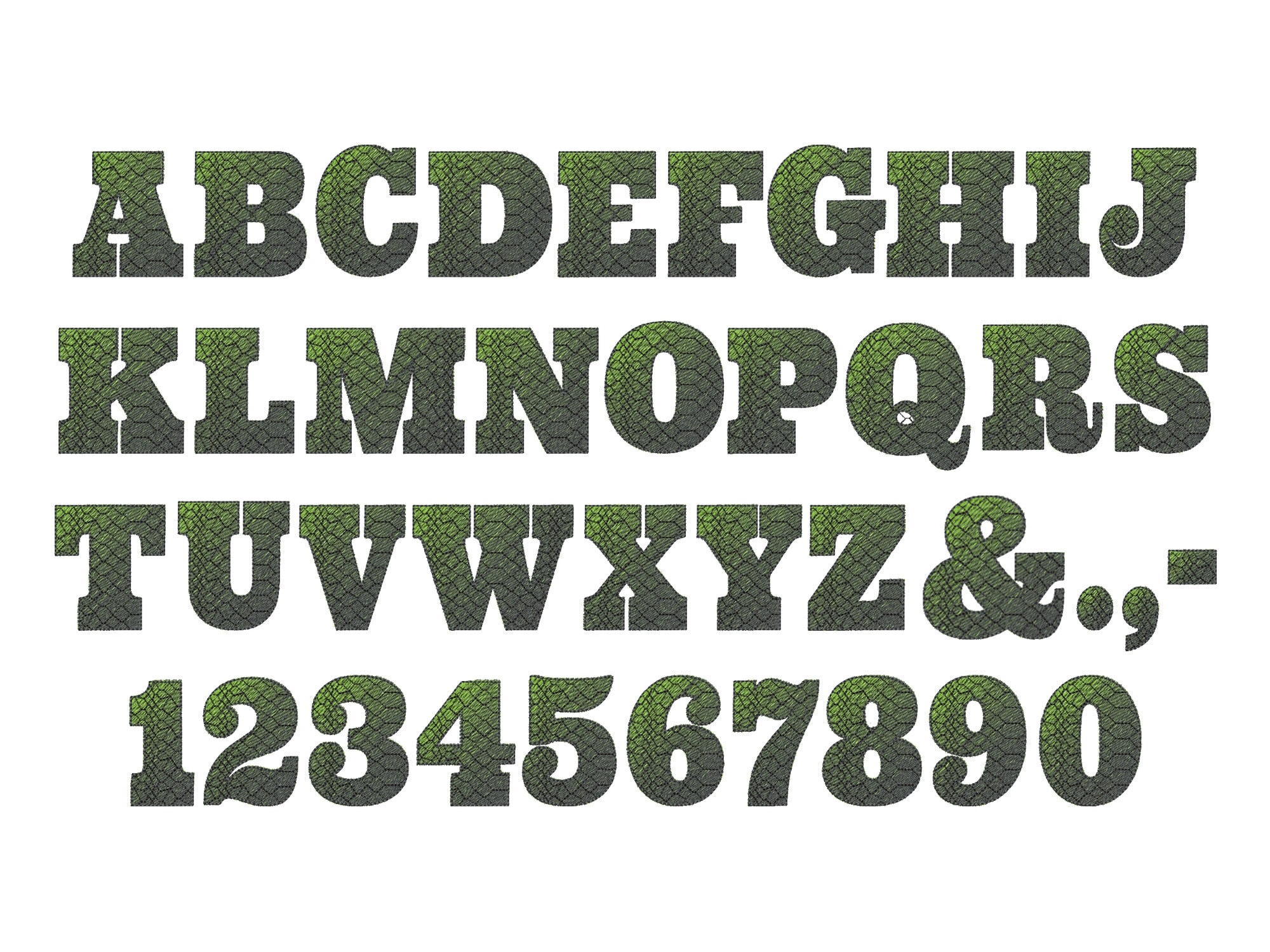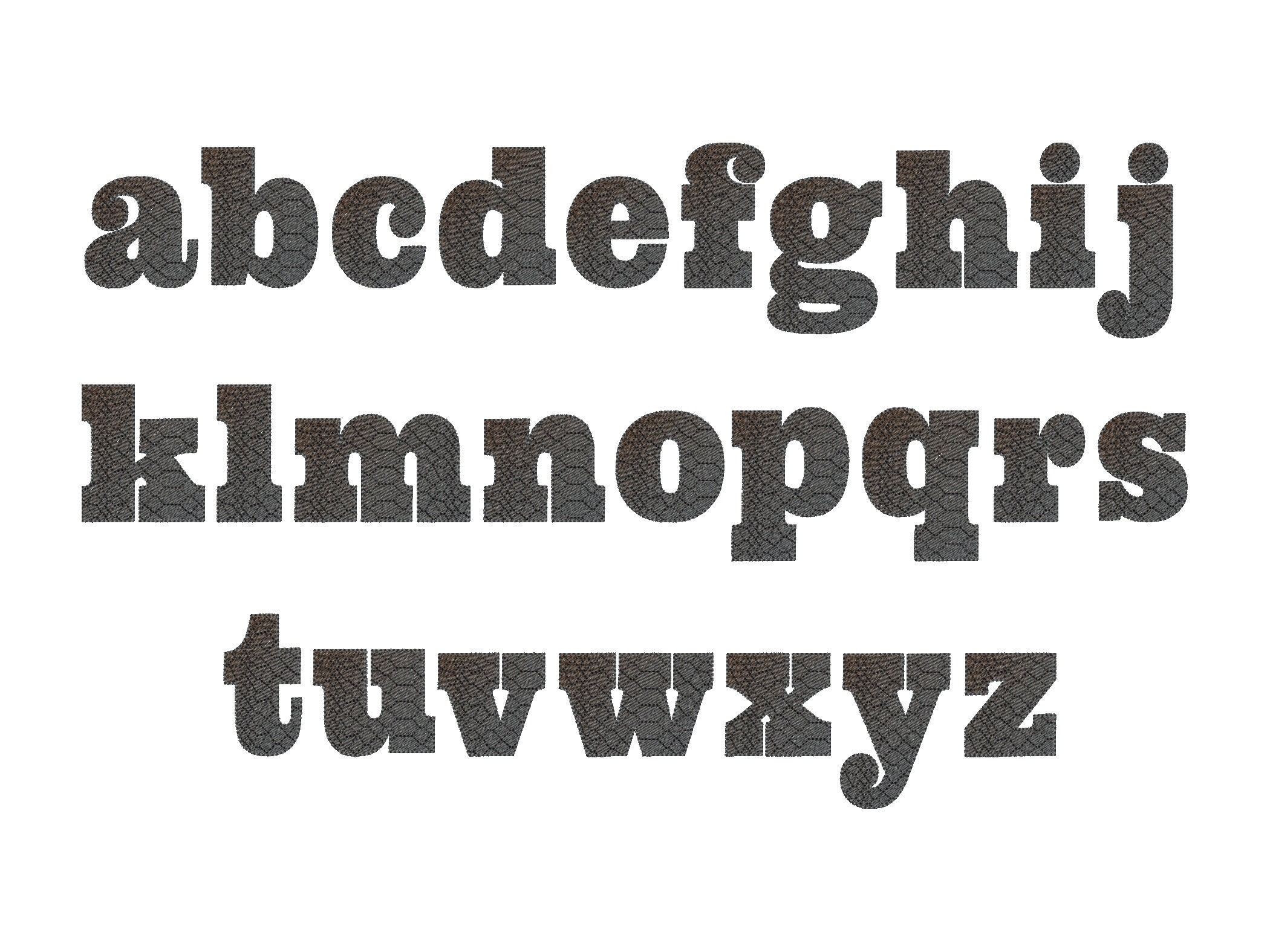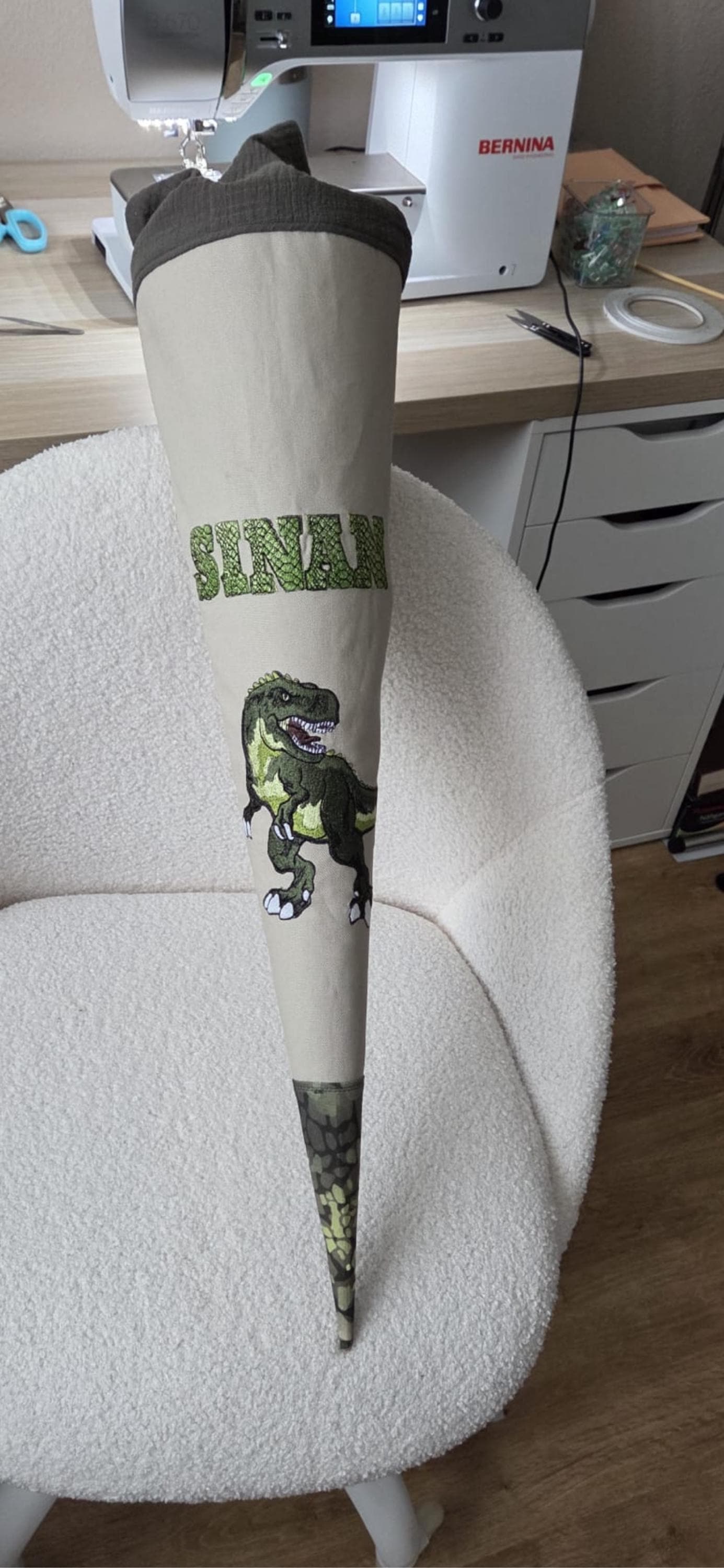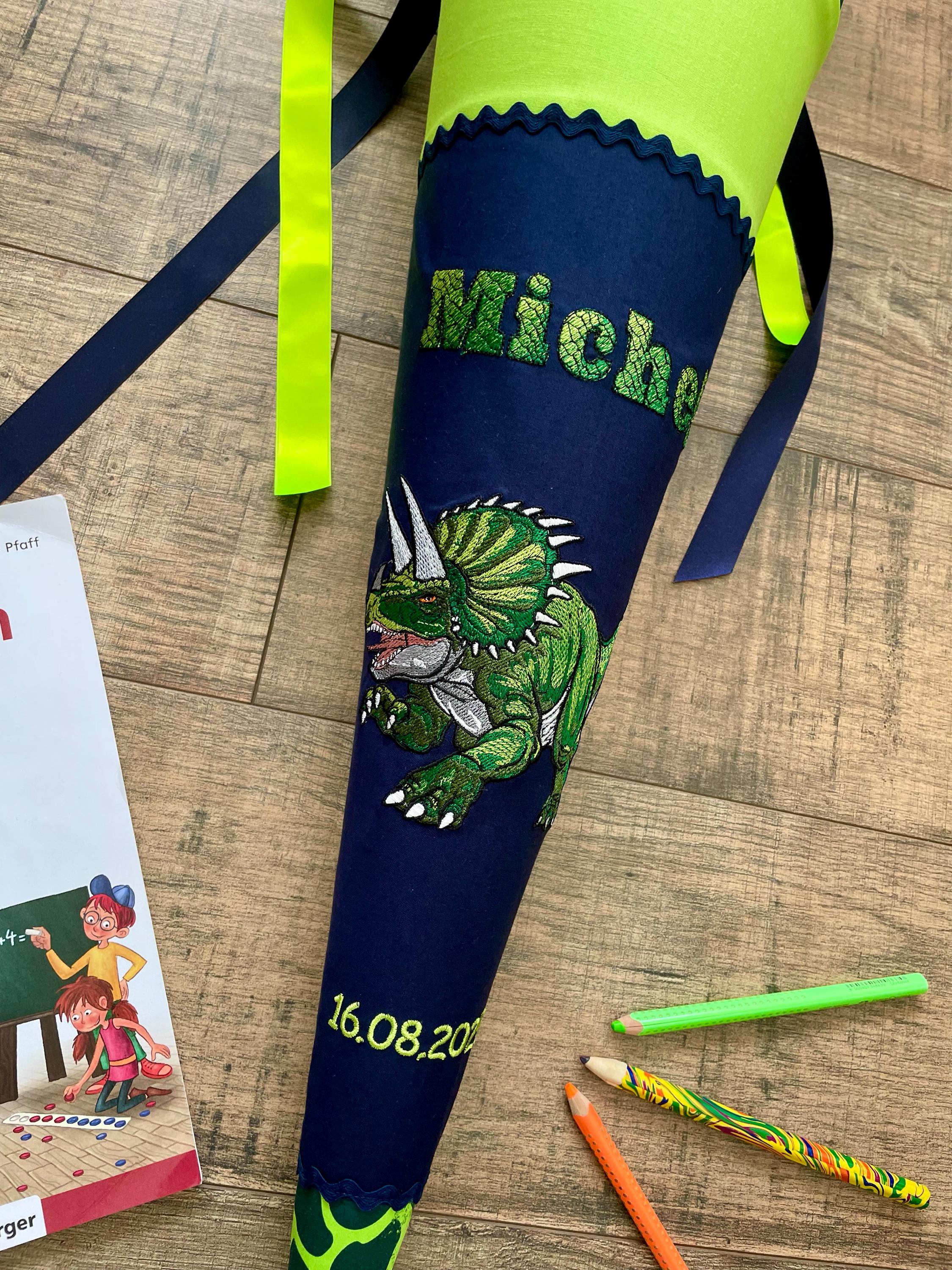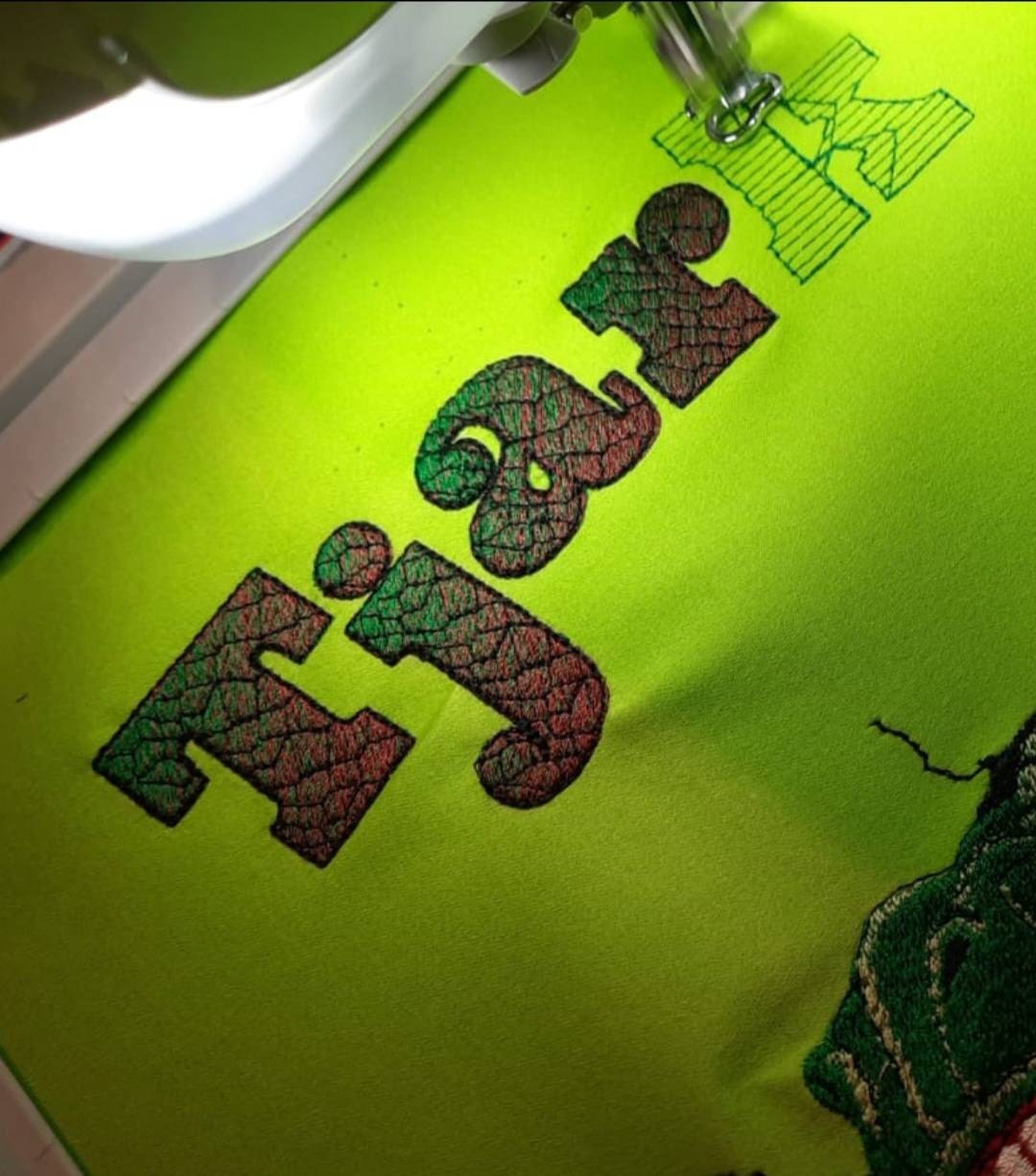
T-rex Rex gradient ombre Font dinosaur skin alphabet fill stitch Jurassic Font A-Z and numbers machine embroidery designs 1.5 thru 3.5″ boys
This is a fill stitch font that has 3 layers:
the first two layers make the ombre effect, mix green and brown colors and get stunning effects
the third layer is the skin pattern, which gives the true Trex look
and the last one is an outline.
Included uppercase and lowercase letters, numbers 0-9 and punctuation & . , -